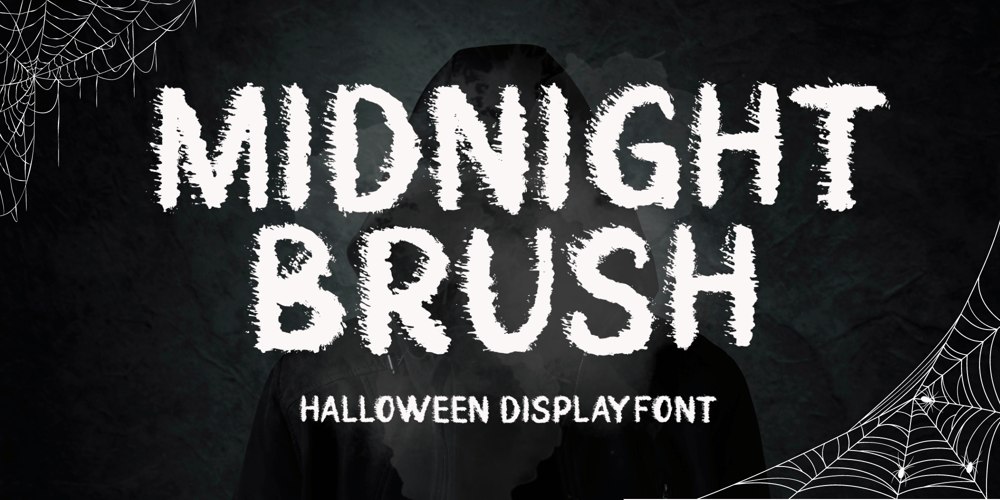
Midnight Brush
Midnight Brush font
Midnight Brush Font Family was designed by Agung Eko Nugroho and published by AEN Creative Studio. Midnight Brush contains 2 styles and family package options. The Midnight Brush is a unique and spooky typeface designed specifically for Halloween. It combines the fluidity of brush script with the boldness of a display font, making it perfect for creating eye-catching and eerie designs. It works well for various design ideas that require a fun, cool touch. Your options are limitless.